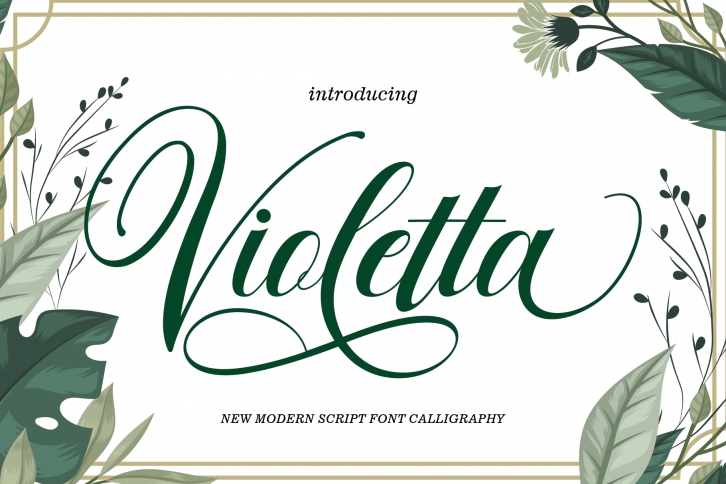
Violetta is this amazing typeface handmade script font we created in freestyle for those of you who do work and crafts.
It’s perfect for any type of work you’re working various purposes such as logos, wedding invitations, headings, t-shirts, letterheads, signage, labels, news, posters, badges etc.
OpenType features with alternative styles, ligatures, and multiple language support.